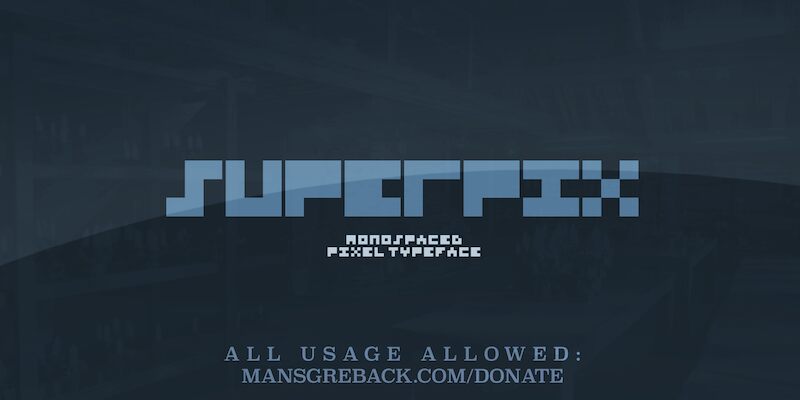
Superpix Regular
Superpix, a bold and extra-expanded pixelated font designed by Mans Greback, is perfect for projects that require a touch of retro charm. The bitmap typeface gives off a nostalgic video game vibe while the extra-bold weight packs a punch. Ideal for use in posters, logos, or even website headers, Superpix's unique pixelated style is sure to grab attention. Its extra-expanded width allows for creative experimentation in design layouts. From vintage arcade-inspired designs to futuristic tech branding, Superpix adds an edgy touch to any project seeking a distinct and playful aesthetic.